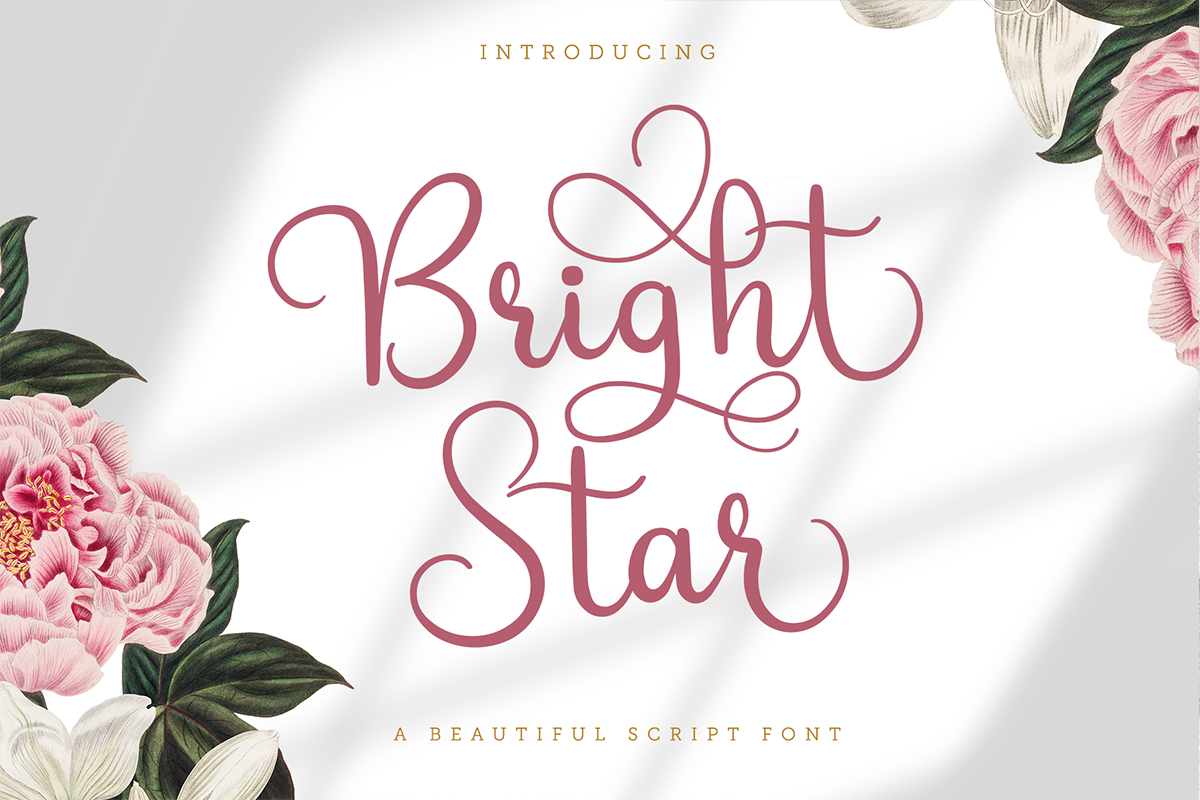
Bright Star | Beautiful Script Font
Bright Star is beautiful script font. This font is great for branding design, menu designs, product packaging, quote or simply design with stylish text overlay to any background image.
Uppercase & lowercase letters
Alternate glyphs
Multi language support